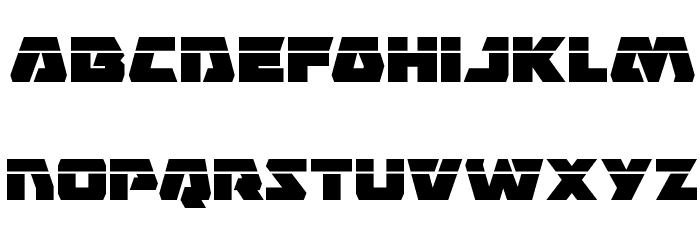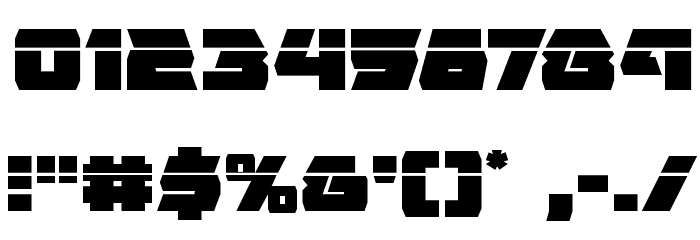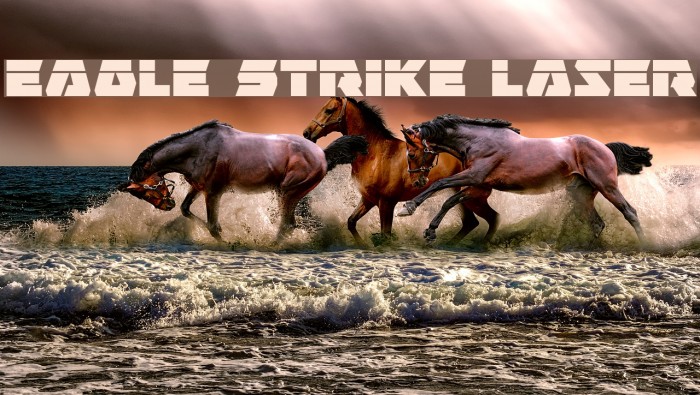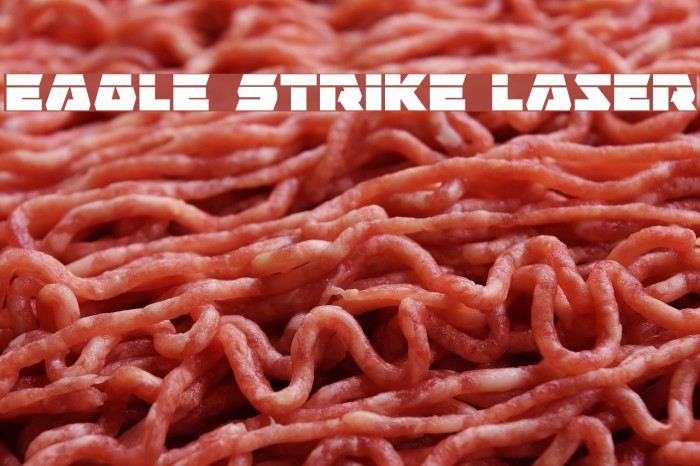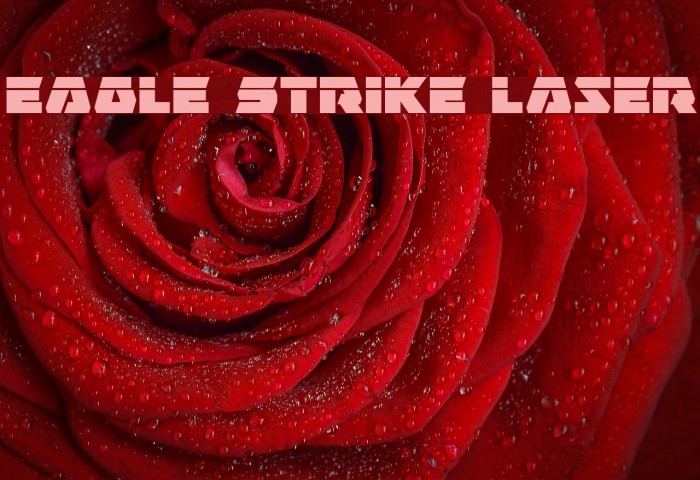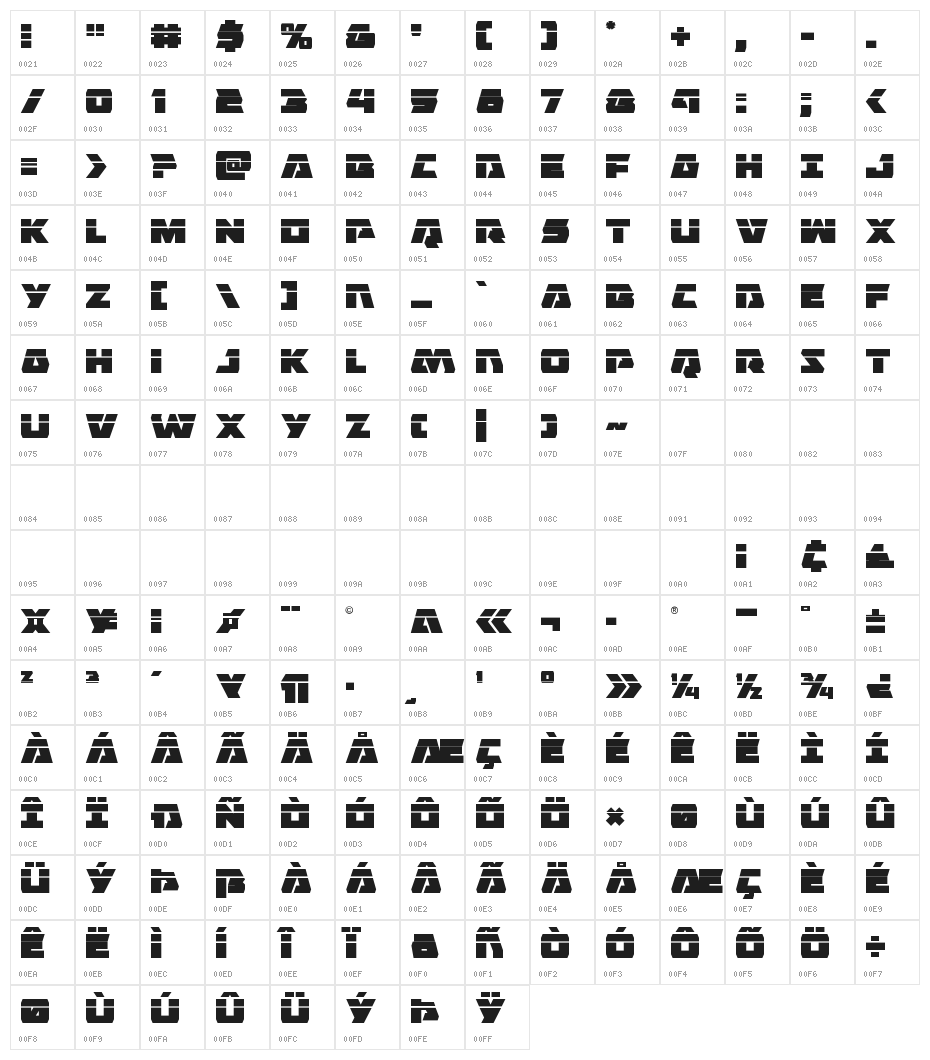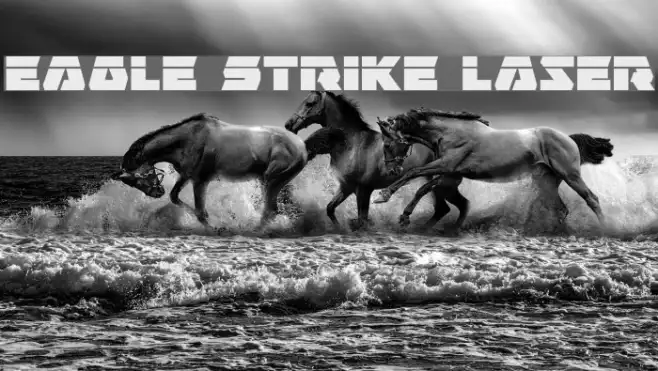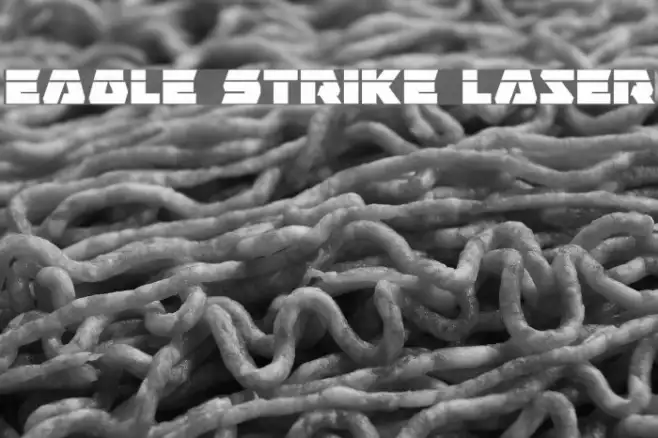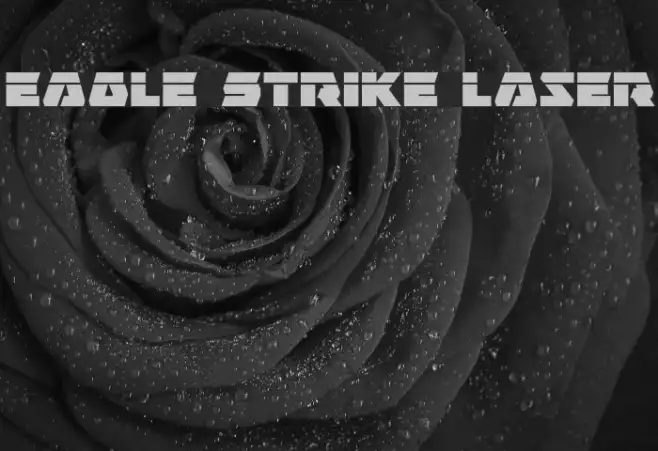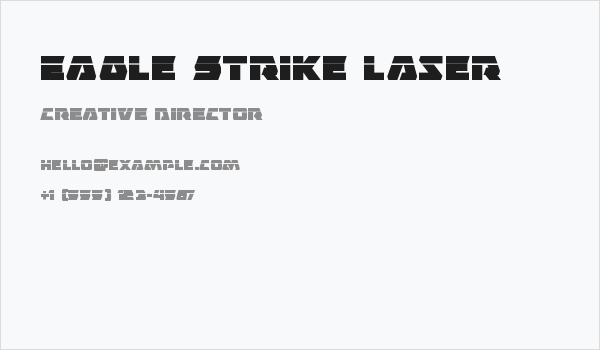
Eagle Strike Laser Font
This font features a bold, geometric design with sharp angles and a futuristic aesthetic. Each character is crafted with a distinct, blocky appearance, giving it a strong and commanding presence. The uppercase and lowercase letters maintain a consistent style, with angular cuts and a uniform thickness throughout. Numbers and special characters are designed to match the bold and striking look, making them stand out prominently. The overall design is reminiscent of a digital or sci-fi theme, suitable for projects that require a modern and edgy feel.
- Proposed Projects: Ideal for sci-fi themed projects, video game titles, tech branding, and futuristic posters.
- Overall Style: Futuristic, Modern